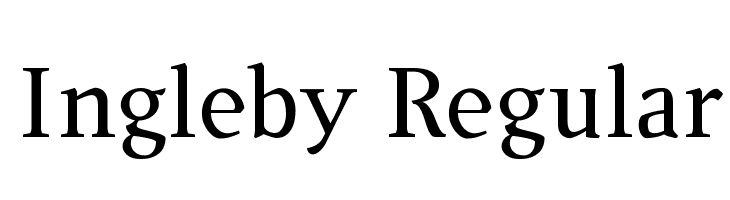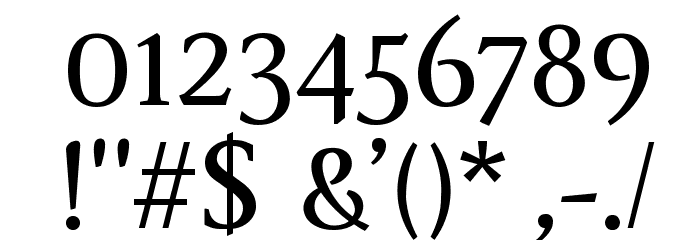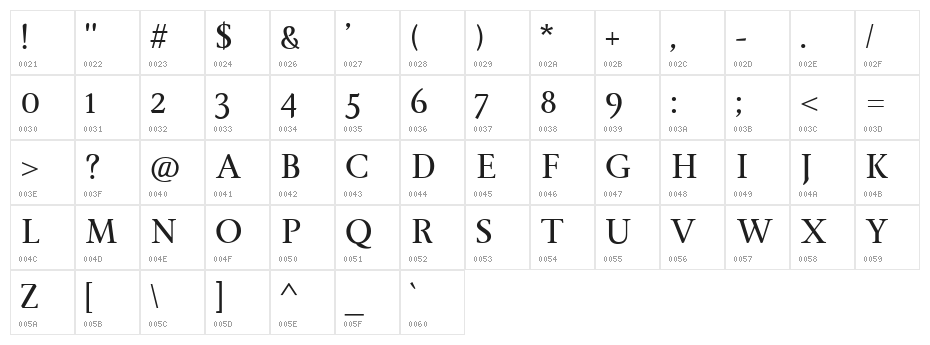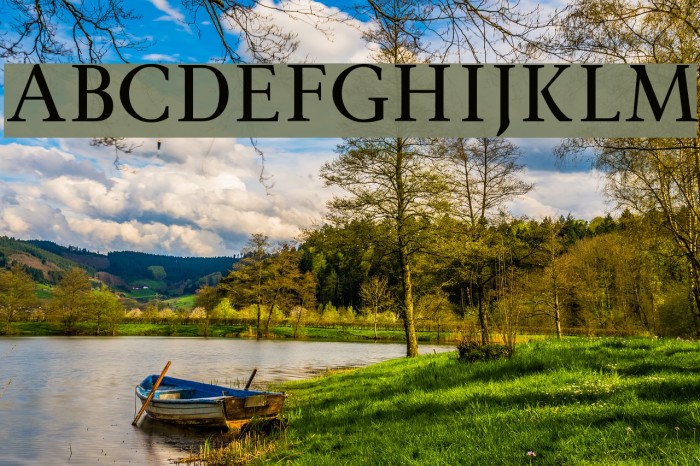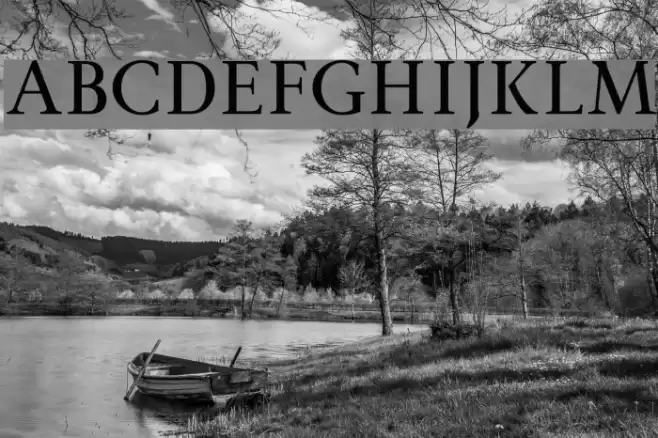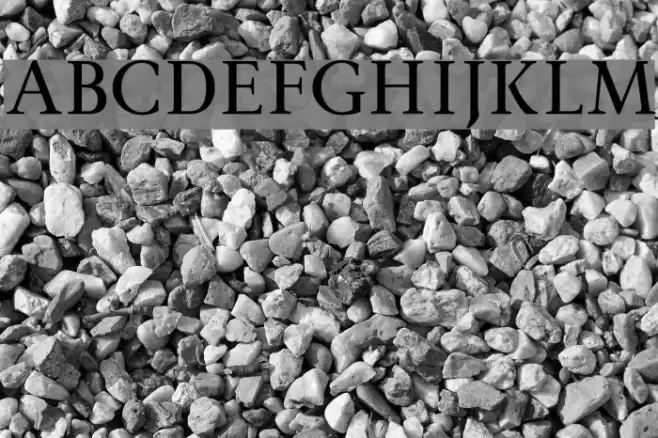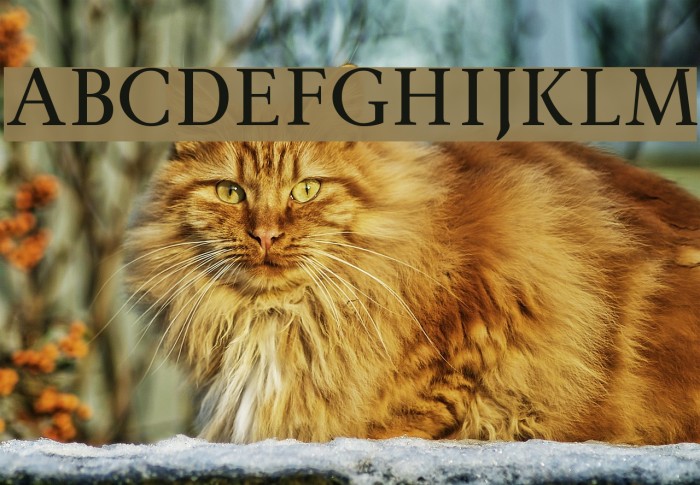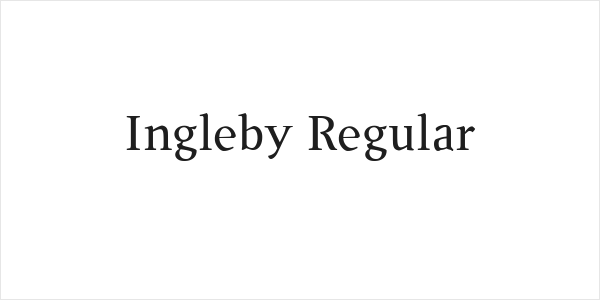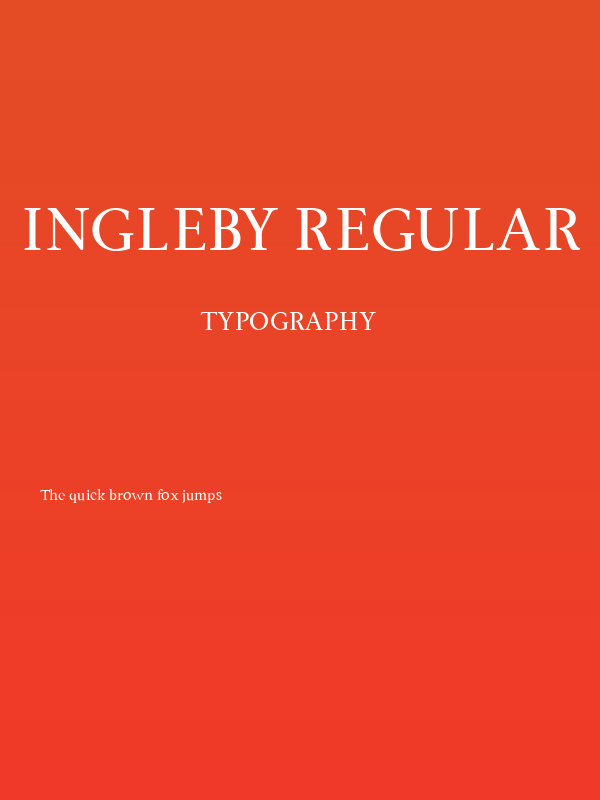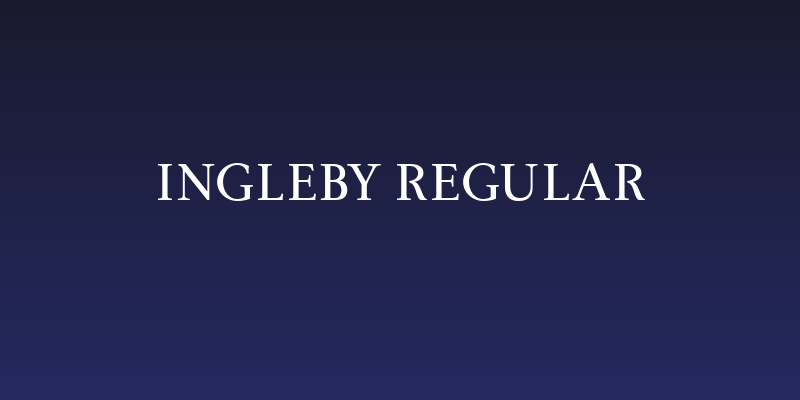
Ingleby Regular Font
Ingleby Regular Description
This typeface features a classic serif design with elegant, slightly curved strokes and a balanced proportion. The uppercase letters are tall and commanding, while the lowercase letters maintain a consistent x-height, offering readability and sophistication. The numerals are clear and distinct, with a traditional style that complements the overall aesthetic. Special characters are well-integrated, maintaining the font's cohesive appearance. The font exudes a timeless quality, suitable for a variety of applications where clarity and elegance are paramount.
| Use Case | Body text, Editorial design, Formal documents |
| Proposed Projects | Ideal for book publishing, formal invitations, branding for luxury products, and editorial design. |